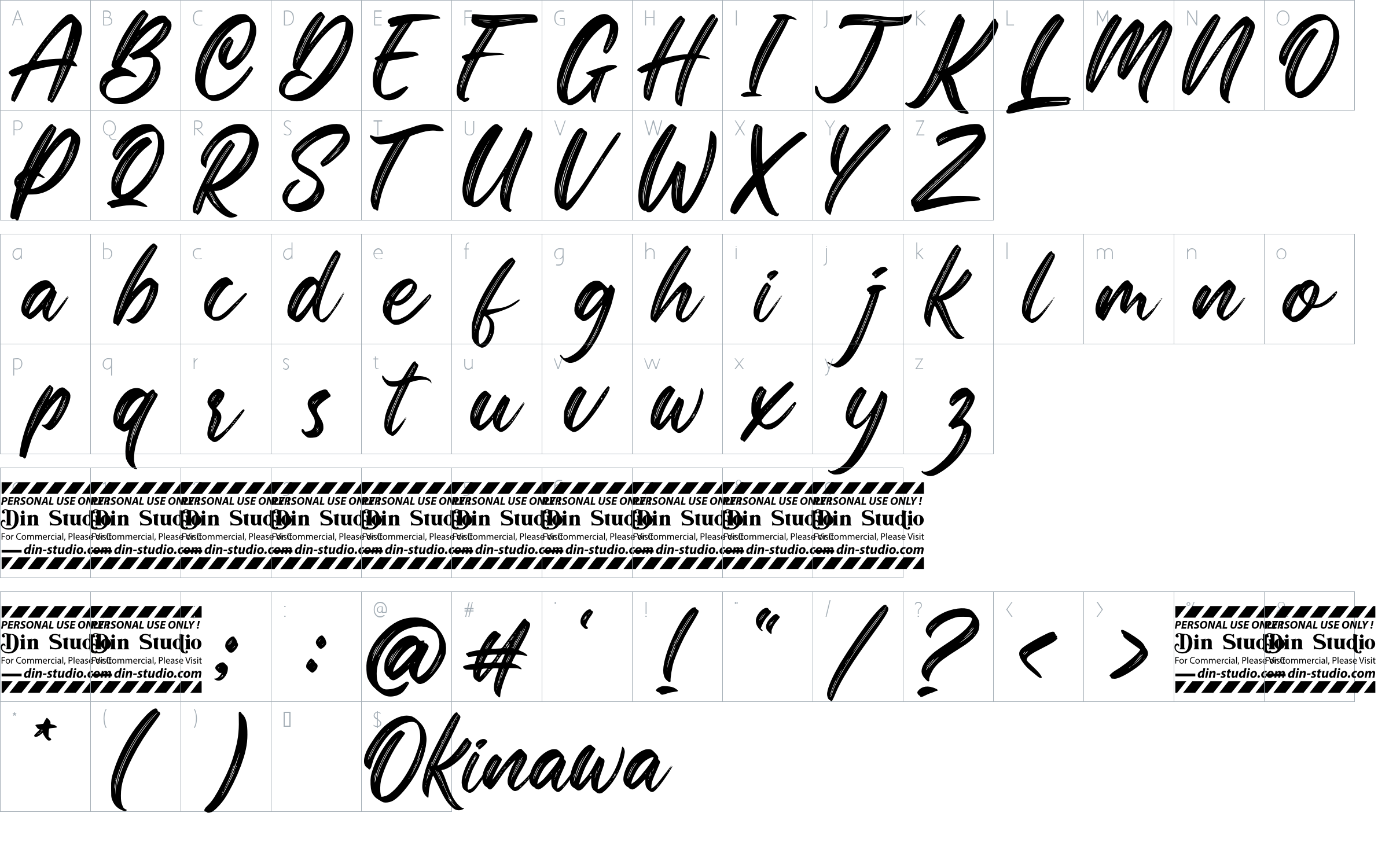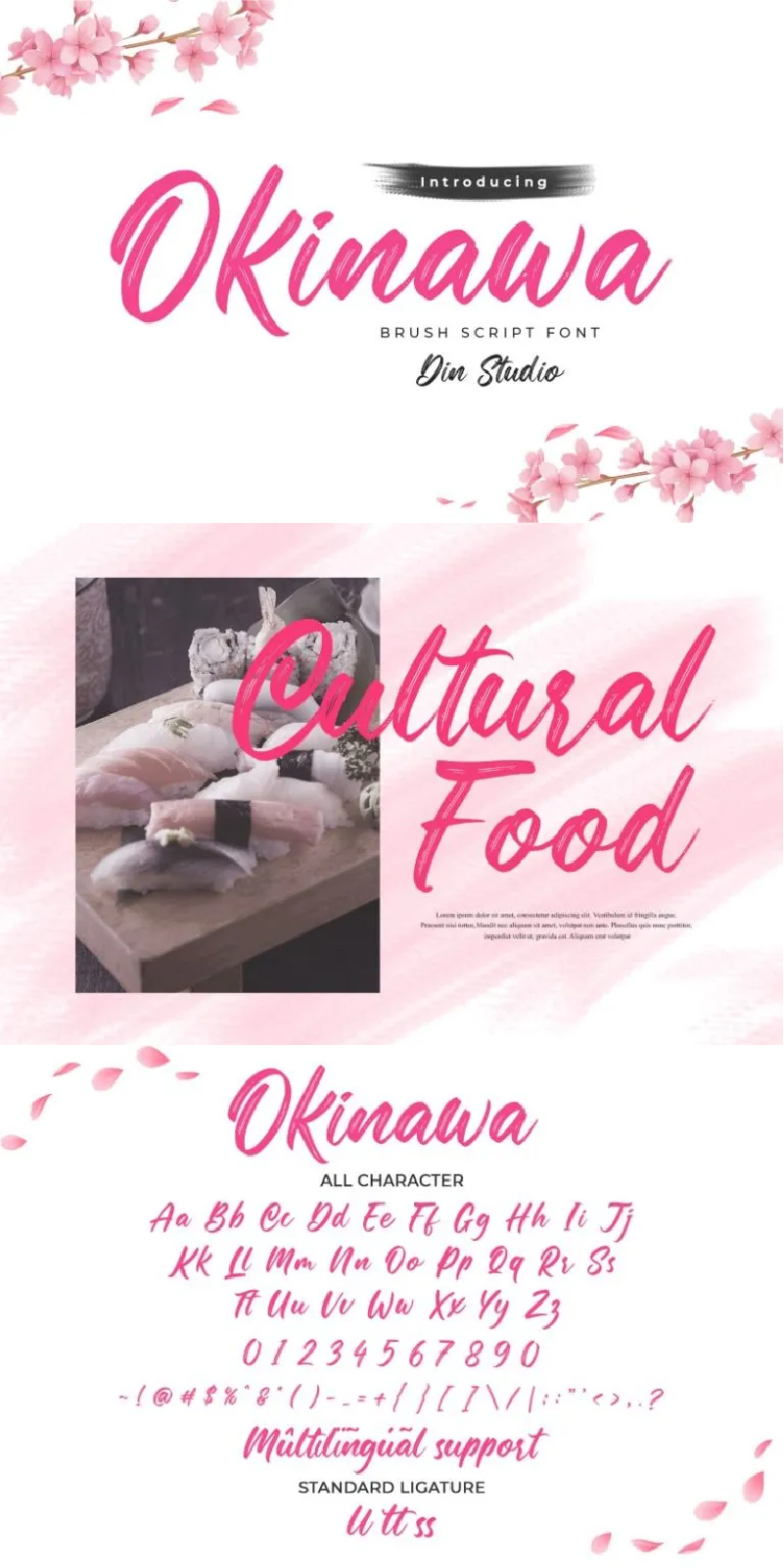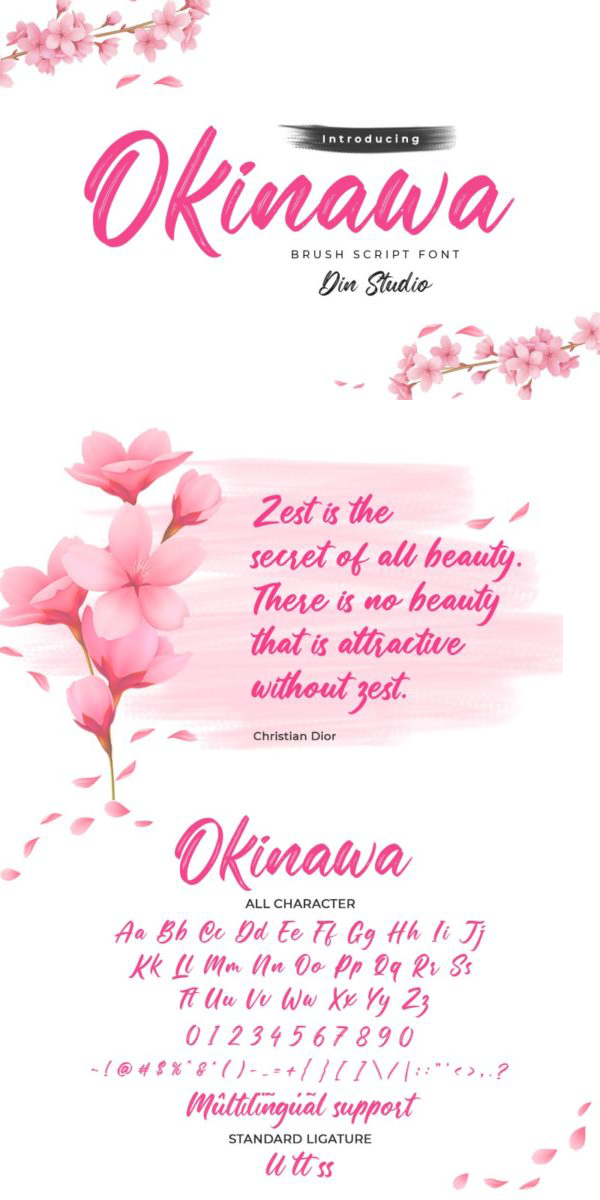
Okinawa Font
About Okinawa
Okinawa – Classy Script Font. This brush font will make your design project more powerful. Made for any professional project branding. It is the best for logos, branding and quotes. Every letter has a unique and beautiful touch. See the previews above to get some inspiration on how you can use them. Enjoy the font!